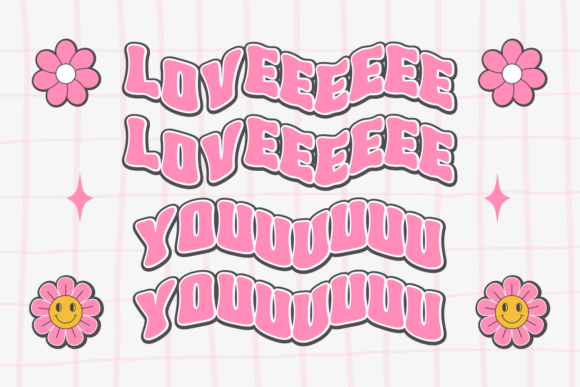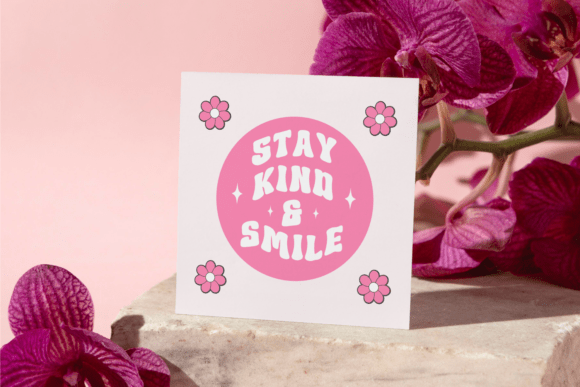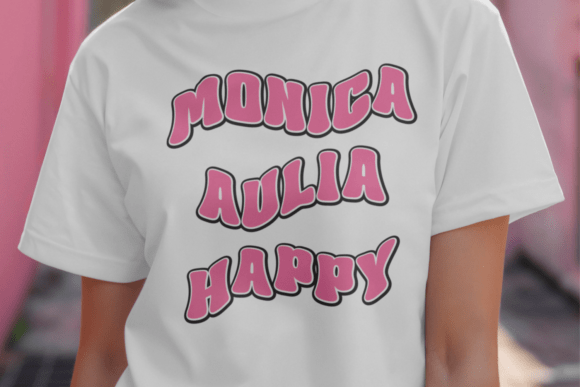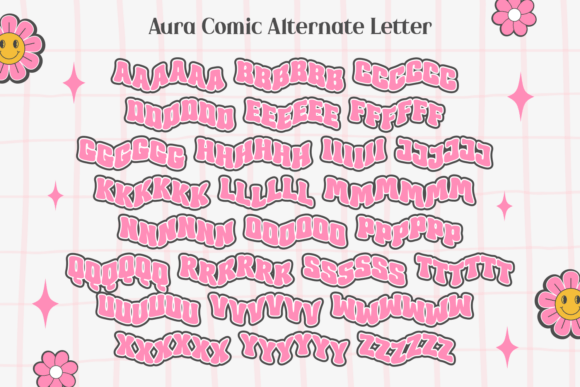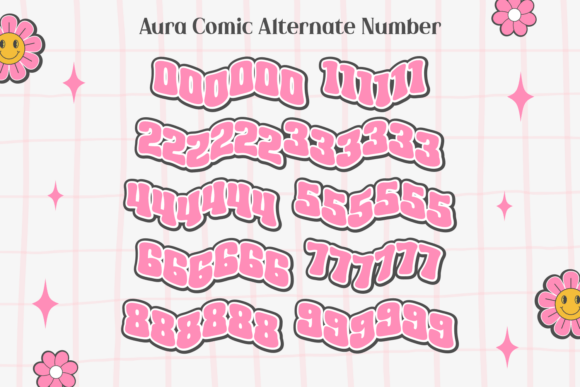
Aura Comic Font: Unleash the Power of Versatility in Your Designs
Are you tired of using the same old fonts in your designs? Do you want to add a touch of playfulness and elegance to your creations? Look no further than the Aura Comic Font, a versatile and refreshing font that can transform the ordinary into something exceptional. In this article, we’ll explore the unique features of this font, its various styles, and how it can be used to elevate your designs.
A Font that Captures the Soul of the 70s
The Aura Comic Font is a vintage font that embodies the spirit of the 1970s, with its distinct styles ranging from Display and Wavy to Groovy and Retro. This font is perfect for designers and crafters who want to add a nostalgic touch to their designs while still keeping them modern and fresh. The font’s classic Cricut design undertone makes it an absolute charmer for those seeking a playful yet elegant embodiment of their thoughts.
A Funky Vibe for T-Shirts and More
The Aura Comic Font exudes a funky vibe that fits perfectly on T-shirts, making your style speak louder than words. Whether you’re designing for yourself or for a client, this font is sure to make a statement. Its bold and playful style makes it perfect for creating eye-catching designs that grab attention. But it’s not just limited to T-shirts; this font can be used for a wide range of applications, from branding and logos to magazines and cartoons.
Unparalleled Versatility
One of the standout features of the Aura Comic Font is its versatility. With a range of styles to choose from, you can use this font to create a wide range of designs, from energetic stickers to bold logos. The font’s unique blend of styles ensures that your message makes an impact, whether you’re creating for print or digital media. Whether you’re a designer, crafter, or DIY enthusiast, this font is sure to become a go-to in your toolkit.
Expressiveness and Flair
The Aura Comic Font is meticulously crafted by 7ntypes to inject expressiveness into your designs. With a special focus on love and brightness, this font effortlessly adds a touch of flair to your creations. Whether you’re designing for a client or for yourself, this font is sure to bring your ideas to life. Its stylish aesthetics make it perfect for creating designs that stand out from the crowd.
The Aura Comic Font is ideal for designers and crafters who want to add a touch of playfulness and elegance to their designs. Whether you’re creating for print or digital media, this font is sure to deliver. Its unique versatility makes it perfect for a wide range of applications, from branding and logos to magazines and cartoons. With this font, you can:
- Create energetic stickers and carve out a brand identity that stands out
- Design bold logos and branding materials that make a statement
- Add a touch of nostalgia to your designs while keeping them modern and fresh
- Create eye-catching T-shirt designs that grab attention
| Font Name | Aura Comic Font |
| Author | Andal (7NTypes) |
In conclusion, the Aura Comic Font is a versatile and refreshing font that can transform the ordinary into something exceptional. With its unique blend of distinct styles, funky vibe, and unparalleled versatility, this font is perfect for designers and crafters who want to add a touch of playfulness and elegance to their designs. Whether you’re creating for print or digital media, this font is sure to deliver. So why settle for ordinary fonts when you can unleash the power of the Aura Comic Font in your designs?